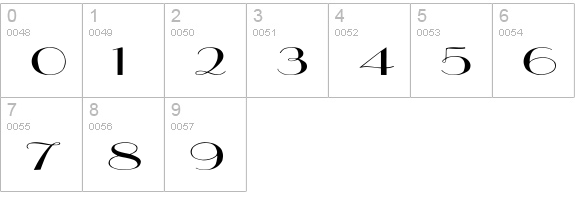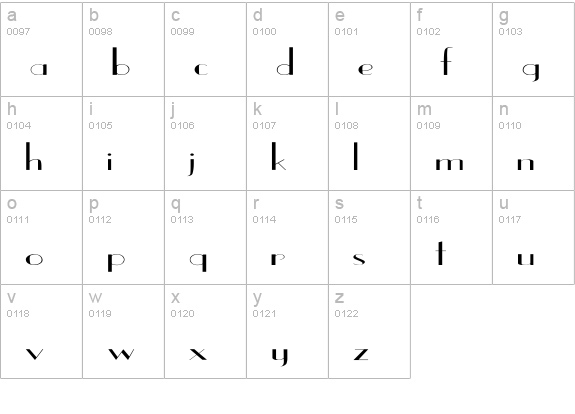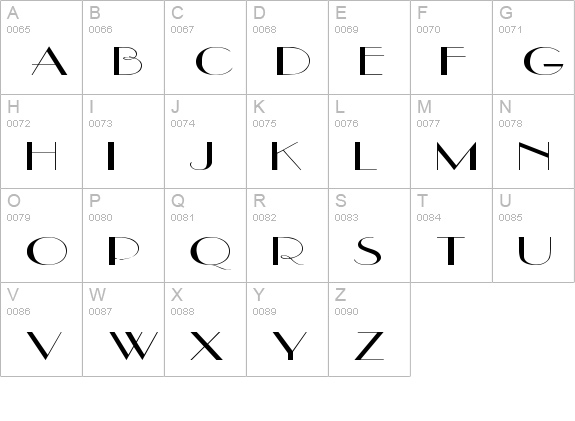
EastSide Ex Font Details
Introducing EastSide Ex, a captivating and versatile font that effortlessly blends contemporary style with timeless elegance. With its sleek and streamlined letterforms, this font exudes an air of sophistication and modernity, making it the perfect choice for any design project. EastSide Ex offers a wide range of possibilities, thanks to its extensive character set and various stylistic alternates. Whether you're designing a logo, crafting a headline, or creating eye-catching packaging, this font has got you covered. Its clean and legible design ensures readability across various mediums, from print to digital. But what truly sets EastSide Ex apart is its accessibility. This remarkable font is available for free, allowing designers, creatives, and enthusiasts alike to access its exceptional qualities without any financial constraints. You can easily download EastSide Ex at FontsMarket.com, a trusted platform that offers a wide array of high-quality fonts for all your design needs. Don't miss out on the opportunity to enhance your projects with the elegance and versatility of EastSide Ex. Download this remarkable font today and elevate your designs to new heights of creativity and refinement.